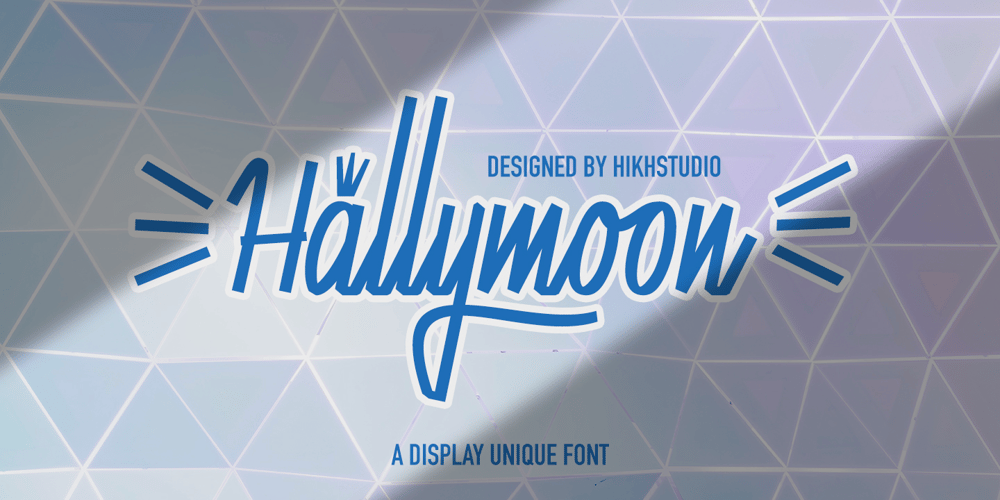
Hallymoon
Hallymoon font
Hallymoon Font Family was designed by Hajid Hikmatiyar and published by Hikhcreative. Hallymoon contains 1 styles and family package options. Hallymoon is a monoline display font script, a typeface inspired by old neon signs. Its very suitable to use on many of your design projects such as Signage , Book Covers, Invitation, Packaging, Logotype and more.I made this with love for your project. Hope you enjoy it!